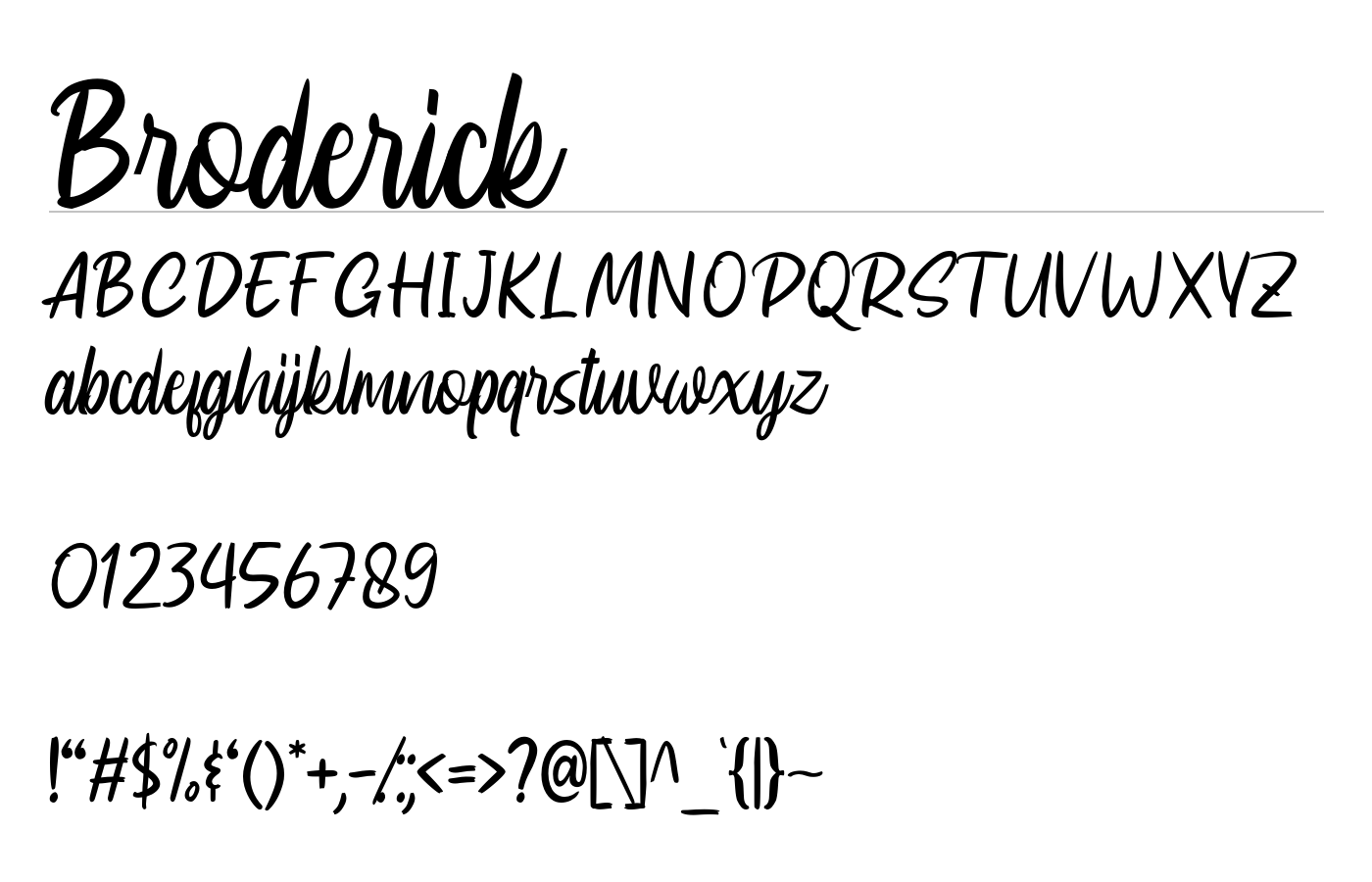
Broderick is a lively, handwritten script font with a casual yet refined style. It features smooth, flowing strokes with a medium weight and moderate contrast, giving it an approachable and friendly feel perfect for branding, invitations, and creative projects that want a personal touch. Its clear letterforms and balanced spacing make it versatile for both headlines and short text, communicating warmth and personality.
Broderick Font
About Broderick Font